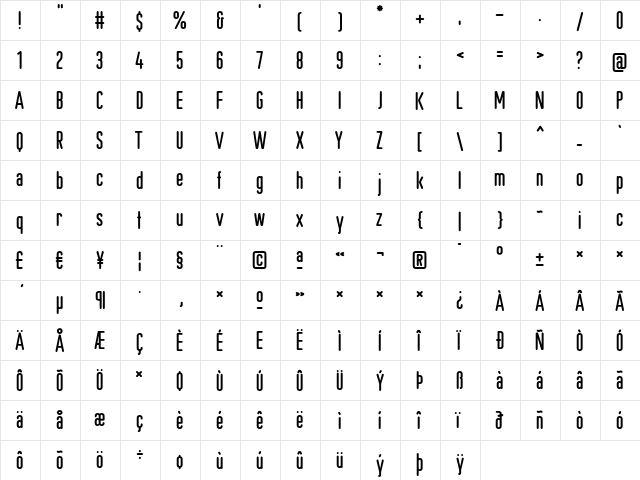
CstBerlinEast OrigRound
Design Context for CstBerlinEast Typeface
CstBerlinEast softens its letterforms with rounded terminals, giving it an approachable, friendly quality that works well in consumer-facing and digital contexts.
A natural fit for tech startups, health and wellness brands, children's products, and friendly consumer apps.
Font Pairing: Pairs well with a rounded or humanist sans for body copy, maintaining the friendly tone without relying on CstBerlinEast to carry extended reading.
Pro Tip: Pair CstBerlinEast with a geometric sans for a balanced system — the rounded softness works as a warm counterpoint to harder-edged companions.